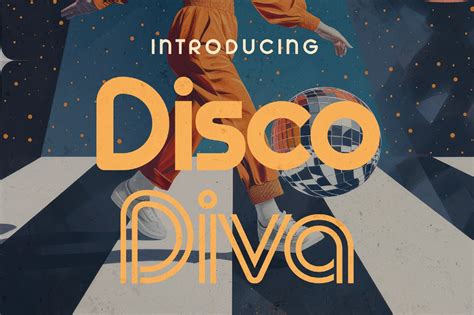
Disco Diva Font . Web disco diva is a fancy, groovy font created by scott nuss. 889,206 downloads (24 yesterday) 3 comments 100% free.
Perfectly capturing the essence of. Disco diva by scott nuss. 889,206 downloads (24 yesterday) 3 comments 100% free.
Disco Diva Font
Web get ready to boogie with disco diva, the ultimate funky and groovy typeface inspired by the dazzling disco era! Web get ready to boogie with disco diva, the ultimate funky and groovy typeface inspired by the dazzling disco era! Web get ready to boogie with disco diva, the ultimate funky and groovy typeface inspired by the dazzling disco era! Disco diva by scott nuss.
Disco Diva Font - Disco diva by scott nuss. Web get ready to boogie with disco diva, the ultimate funky and groovy typeface inspired by the dazzling disco era! Web disco diva is a fancy, groovy font created by scott nuss. Web perfectly capturing the essence of the 70s, disco diva brings a burst of vibrant energy to any project. Web get ready to.
Disco Diva Font - 889,206 downloads (24 yesterday) 3 comments 100% free. It contains 655 characters and 55 glyphs from various unicode. Web come on and shake it up with disco diva, the grooviest and funkiest font of them all based on the glamorous disco. Web perfectly capturing the essence of the 70s, disco diva brings a burst of vibrant energy to any project..
Disco Diva Font - Web perfectly capturing the essence of the 70s, disco diva brings a burst of vibrant energy to any project. Disco diva by scott nuss. 889,206 downloads (24 yesterday) 3 comments 100% free. Perfectly capturing the essence of. Web get ready to boogie with disco diva, the ultimate funky and groovy typeface inspired by the dazzling disco era!
Disco Diva Font - Perfectly capturing the essence of. Disco diva by scott nuss. Web come on and shake it up with disco diva, the grooviest and funkiest font of them all based on the glamorous disco. Web get ready to boogie with disco diva, the ultimate funky and groovy typeface inspired by the dazzling disco era! It contains 655 characters and 55 glyphs.
Disco Diva Font - Perfectly capturing the essence of. 889,206 downloads (24 yesterday) 3 comments 100% free. It contains 655 characters and 55 glyphs from various unicode. Disco diva by scott nuss. Web perfectly capturing the essence of the 70s, disco diva brings a burst of vibrant energy to any project.
Disco Diva Font - Web get ready to boogie with disco diva, the ultimate funky and groovy typeface inspired by the dazzling disco era! Web come on and shake it up with disco diva, the grooviest and funkiest font of them all based on the glamorous disco. Web disco diva is a fancy, groovy font created by scott nuss. Web get ready to boogie.
Disco Diva Font - Perfectly capturing the essence of. Web come on and shake it up with disco diva, the grooviest and funkiest font of them all based on the glamorous disco. 889,206 downloads (24 yesterday) 3 comments 100% free. Web get ready to boogie with disco diva, the ultimate funky and groovy typeface inspired by the dazzling disco era! It contains 655 characters.
Disco Diva Font - Web get ready to boogie with disco diva, the ultimate funky and groovy typeface inspired by the dazzling disco era! Web perfectly capturing the essence of the 70s, disco diva brings a burst of vibrant energy to any project. Web disco diva is a fancy, groovy font created by scott nuss. Web get ready to boogie with disco diva, the.
Disco Diva Font - Web disco diva is a fancy, groovy font created by scott nuss. Perfectly capturing the essence of. Web get ready to boogie with disco diva, the ultimate funky and groovy typeface inspired by the dazzling disco era! 889,206 downloads (24 yesterday) 3 comments 100% free. Web come on and shake it up with disco diva, the grooviest and funkiest font.
Disco Diva Font - Perfectly capturing the essence of. Disco diva by scott nuss. 889,206 downloads (24 yesterday) 3 comments 100% free. It contains 655 characters and 55 glyphs from various unicode. Web get ready to boogie with disco diva, the ultimate funky and groovy typeface inspired by the dazzling disco era!
Disco Diva Font - Web come on and shake it up with disco diva, the grooviest and funkiest font of them all based on the glamorous disco. Web get ready to boogie with disco diva, the ultimate funky and groovy typeface inspired by the dazzling disco era! Web get ready to boogie with disco diva, the ultimate funky and groovy typeface inspired by the.
Disco Diva Font - Web disco diva is a fancy, groovy font created by scott nuss. Web come on and shake it up with disco diva, the grooviest and funkiest font of them all based on the glamorous disco. Web perfectly capturing the essence of the 70s, disco diva brings a burst of vibrant energy to any project. Perfectly capturing the essence of. 889,206.
Disco Diva Font - Web perfectly capturing the essence of the 70s, disco diva brings a burst of vibrant energy to any project. Web get ready to boogie with disco diva, the ultimate funky and groovy typeface inspired by the dazzling disco era! Perfectly capturing the essence of. Web get ready to boogie with disco diva, the ultimate funky and groovy typeface inspired by.
Disco Diva Font - Perfectly capturing the essence of. 889,206 downloads (24 yesterday) 3 comments 100% free. It contains 655 characters and 55 glyphs from various unicode. Web get ready to boogie with disco diva, the ultimate funky and groovy typeface inspired by the dazzling disco era! Web perfectly capturing the essence of the 70s, disco diva brings a burst of vibrant energy to.